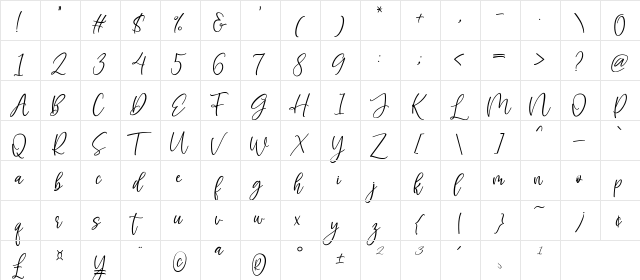
Mahetta Regular
Design Context for Mahetta Typeface
Mahetta is a composed and adaptable typeface that performs quietly and consistently across a wide range of design contexts.